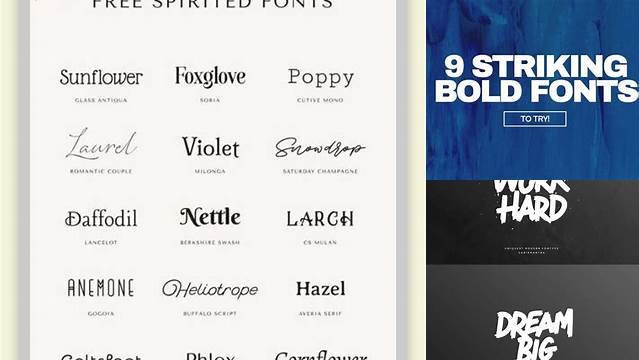
Free Bold Fonts: Where To Find & How To Use Them
Hey guys! Are you on the hunt for some fantastic, free bold fonts to make your projects pop? You've come to the right place! In this article, we’re diving deep into the world of bold fonts, exploring why they’re so important, where to find them, and how to use them effectively. Let’s get started!
Why Use Bold Fonts?
Bold fonts are the unsung heroes of typography. They’re not just about making text thicker; they’re about making a statement. A well-chosen bold font can transform your design from blah to brilliant. Let's break down why these fonts are so essential.
1. Emphasis and Hierarchy
First and foremost, bold fonts are perfect for creating emphasis. In a sea of regular text, a bold word or phrase jumps out, grabbing the reader's attention. This is crucial for establishing a visual hierarchy in your design. Think about headlines, subheadings, and key takeaways – these are the elements you want to highlight, and bold fonts are your best friend here. By using bold fonts strategically, you guide your audience through your content, making it easier for them to digest the information.
Imagine you're designing a poster for an event. The event's name needs to be the most prominent thing on the poster, right? Slapping a bold font on it instantly does the trick. Similarly, in a blog post, bold subheadings break up the text and give readers a quick overview of the content. It's all about creating a clear roadmap for your audience.
2. Readability and Accessibility
While it might seem counterintuitive, bold fonts can actually improve readability, especially in certain contexts. For instance, in digital interfaces, bold text can make small labels and buttons more legible. This is particularly important for users with visual impairments. By using bold fonts, you ensure that your content is accessible to a wider audience.
Think about it – when you're quickly scanning a webpage, your eyes are naturally drawn to the bolder elements. This helps you pick out the key information without having to strain your eyes. In print, bold fonts can make text stand out against busy backgrounds, ensuring that your message doesn't get lost in the noise. Accessibility is key, and bold fonts are a simple yet effective way to enhance it.
3. Visual Impact and Branding
Let's talk about aesthetics. Bold fonts have a certain oomph to them. They command attention and add a touch of drama to your design. This makes them invaluable for branding. A strong, bold font can convey confidence, authority, and modernity. Whether you're designing a logo, a website, or marketing materials, the right bold font can make your brand unforgettable.
Consider some of the world's most iconic brands – many of them use bold typography in their logos and branding. It's no coincidence. A bold font can instantly communicate your brand's personality and values. If you want to project strength and reliability, a bold font is the way to go. It's all about making a lasting impression.
4. Versatility
Don't think that bold fonts are only for headlines and logos. They're incredibly versatile and can be used in a variety of contexts. From body text to captions, a well-chosen bold font can add character and style to your design. The key is to use them judiciously. Overusing bold fonts can dilute their impact, so it's all about finding the right balance.
Experiment with different bold font styles – some are clean and modern, while others are more playful and quirky. There's a bold font out there for every project, whether you're designing a professional report or a fun social media graphic. Versatility is the name of the game, and bold fonts deliver in spades.
Where to Find Free Bold Fonts
Now that we’ve established why bold fonts are essential, let’s talk about where to find them without breaking the bank. Luckily, there are tons of resources out there offering high-quality free bold fonts. Here are some of my favorite spots:
1. Google Fonts
Google Fonts is a goldmine for designers. It boasts a massive library of free, open-source fonts, including a fantastic selection of bold fonts. The best part? They’re all web-friendly, so you can use them on your website without any hassle. Plus, Google Fonts makes it super easy to preview and download fonts, and you can even embed them directly into your website’s code. It’s a one-stop-shop for all your font needs.
Navigating Google Fonts is a breeze. You can filter fonts by categories like serif, sans-serif, and display, making it easy to narrow down your search. And if you already have a font in mind, you can simply type the name into the search bar. The platform also lets you see how a font looks in different sizes and styles, so you can make sure it’s the perfect fit for your project. Seriously, if you’re looking for free bold fonts, Google Fonts should be your first stop.
2. Font Squirrel
Font Squirrel is another fantastic resource for free, commercial-use fonts. This means you can use the fonts you download from Font Squirrel in both personal and commercial projects without worrying about licensing issues. The site has a curated collection of fonts, so you know you’re getting quality stuff. They also have a handy Font Identifier tool that helps you identify fonts from images – super useful if you’ve spotted a bold font you love but don’t know the name.
So there you have it – a comprehensive guide to free bold fonts. They're essential for emphasis, readability, visual impact, and branding. With the wealth of resources available online, you’re sure to find the perfect bold fonts for your next project. Just remember to use them strategically, pair them thoughtfully, and always test for readability. Now go out there and create some bold, beautiful designs! Happy designing, guys!